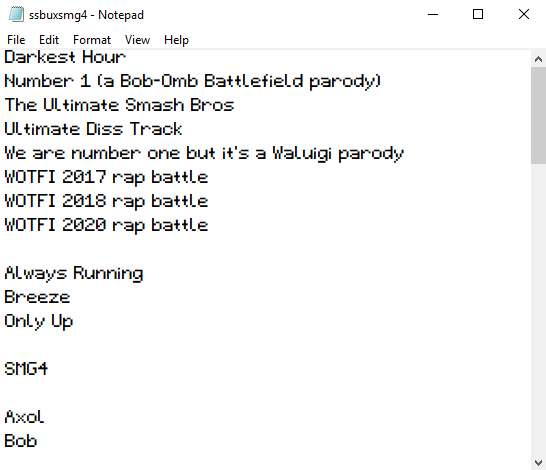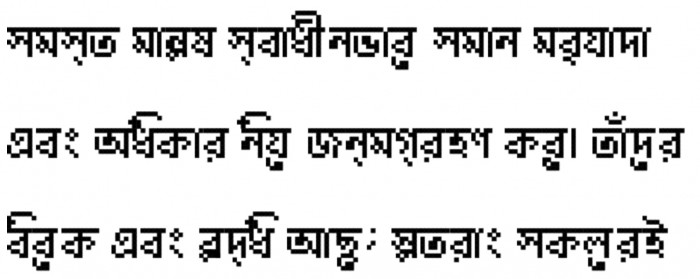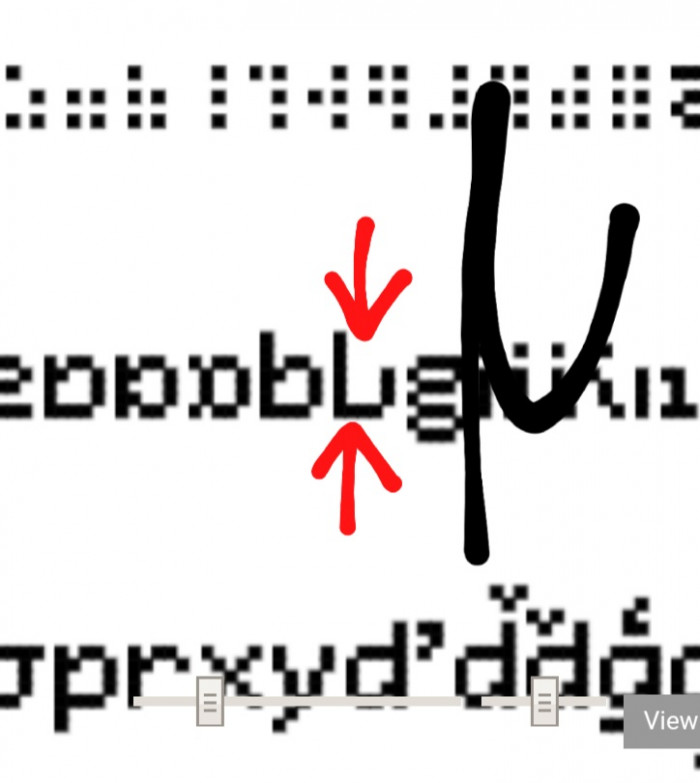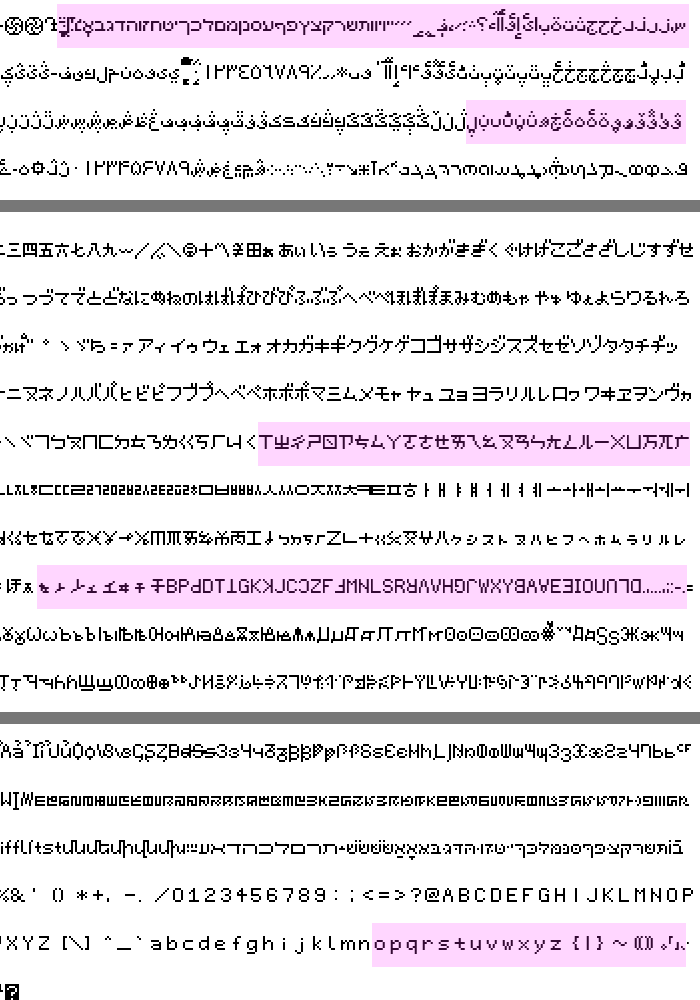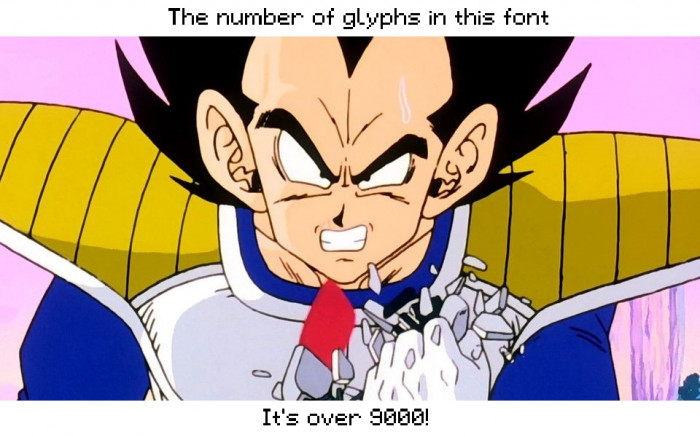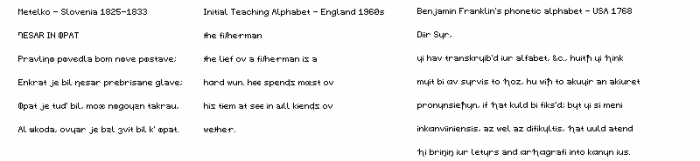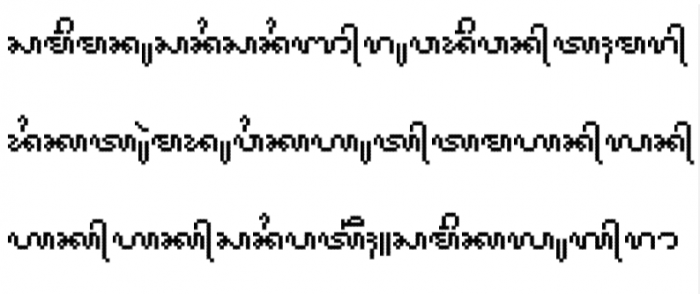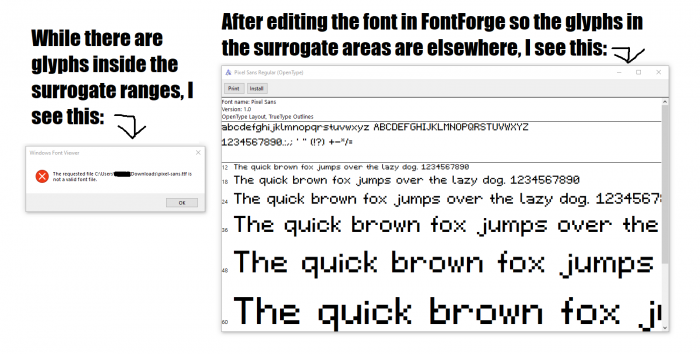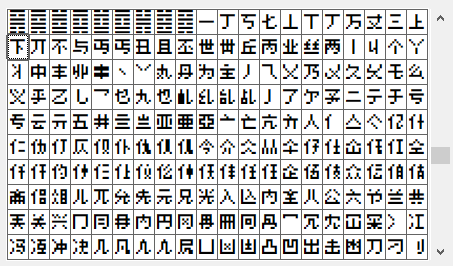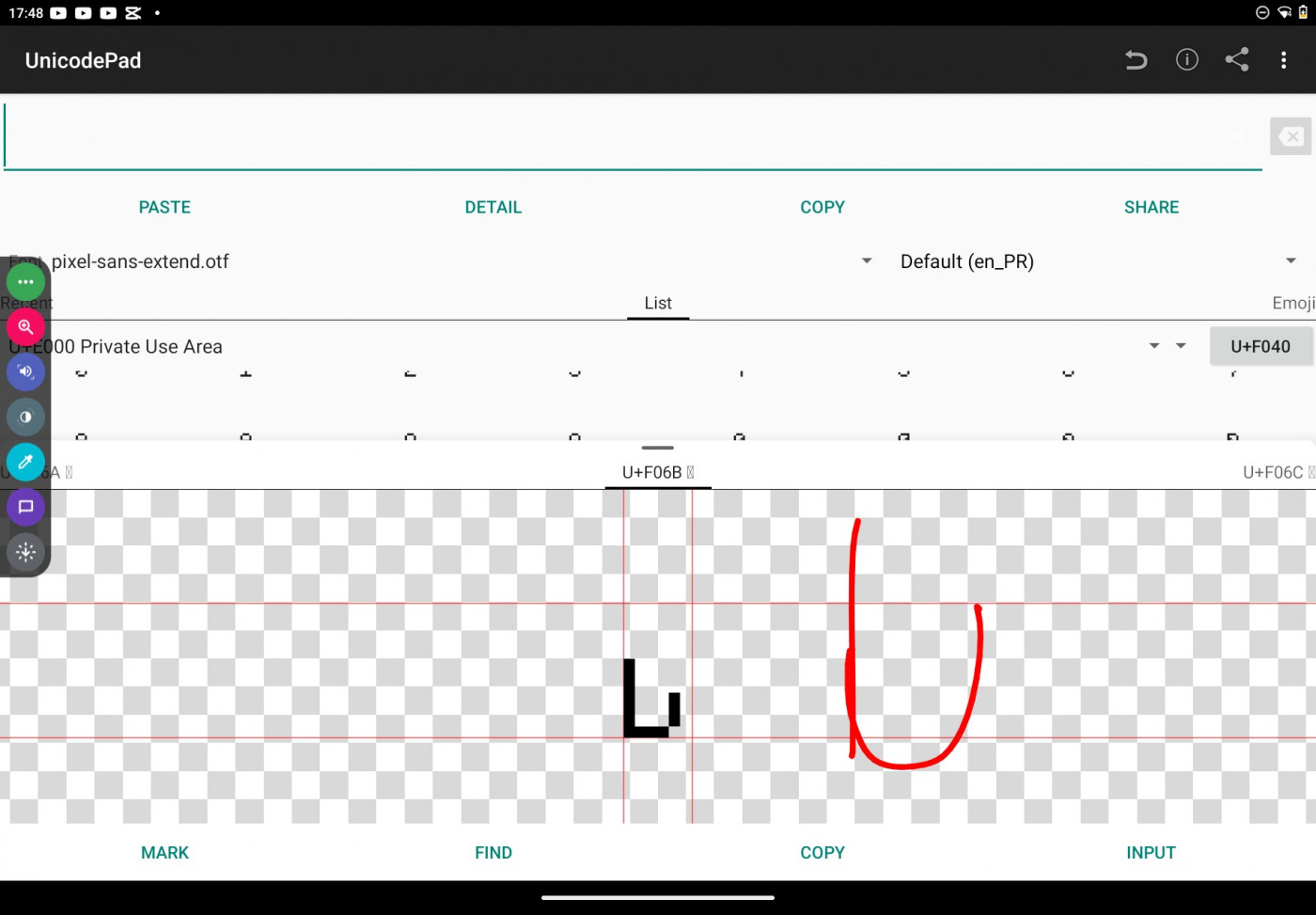
Why does this font have ridiculous line spacing? I know it has some characters that go over the top and bottom lines, but I thought those determine line spacing. Ideally I'd like the lines to be ten pixels high, enough to make the box drawing characters line up.
I think it might be so the preview won't have glyphs that overlap vertically… You could try asking meek about that
Also, you missed a dot on the lowercase Roman numeral 12…
@erictom333 - Is it possible you have a stray brick floating high above one of your glyphs?  If not, you can manually change the font height with a recent addition to FontStruct: Select Expert Mode, then Menu > View > Line Height. You can now adjust the blue horizontal line that indicates the upper boundary of the font's height.
@Goatmeal I've already checked for and removed any stray pixels, and changed the line height to nine pixels, exactly how I want it (per image). I'm okay with glyphs overlapping.
Things get weirder.
Top: Four ɧs. They should have one pixel of line spacing between them, as they do letter spacing.
Below: Box drawing and block element characters, which should line up.
Below that: The character with the lowest descender (a custom presentation form of ģ with the comma below) having zero spacing with a capital A; they should overlap.
Bottom: ÁáÉéÍíÐð. They all have their highest brick above the top line, and have been cut off. This does not happen with characters that go below the bottom line.
I'm not sure if this is intentional or not, but this glyph, where the red arrows are pointing at, to the right of a lowercase b resembles the glyph on the right half, and I'm unsure what languages use that…
@erictom333 - @BWM might be correct above; is the spacing issue you're seeing in the FontStruct preview?  Is that where the samples are from?  Or are you seeing it in other programs once you're installed the generated TTF?  (In Notepad, WordPad, favorite word processor, favoprite image/picture software, etc.)
@BWM It's a handwritted variant of the letter b.
@Goatmeal The sample is from Notepad, not the FontStruct preview. Attached is a sample of text in Notepad in the font.
I'm currently debating where to put my own personal Latin characters. UCAS and Greek Extended are both good candidates, but I plan on encoding the correct characters there.
Pixel Sans now supports Devanagari. Example is from the Rigveda.
Bengali has now been added to Pixel Sans, as part of an ongoing project to include Indic scripts into this font. The following text showcases:
- This font's ridiculous line spacing (please ignore).
- The i and e vowel signs: unlike Devanagari's i vowel sign which must be placed before the consonant to display properly, Bengali's i reaches over the letter to display somewhat correctly. Similar with the e vowel sign.
Comment by erictom333 16th march 2021
An insanely comprehensive character set. I salute your tireless dedication, enjoying especially the attention to detail from the mathematical operators to the miscellaneous character unicode blocks! And of course the range of languages present is impressive.
Can I recommend you add tags to detail the ranges you cover and make it easier for folx to find your great work here?
Also, pay special attention to the character width settings. It's easy at certain zoom levels to move it into apparent alignment with the grid when in fact is off by a hair. This affects pixel rendering – and I can tell you have at least a couple characters deep in the set with ever so slightly aberrant widths.
Overall awesome work, erictom333!
Comment by William Leverette (will.i.ૐ) 16th march 2021
There is no strict criteria for Top Picks. It should generally be something that does not look similar to a Top Pick or something that has not been attempted before.
Very nice work, erictom333. Maybe when this is complete, it could be ported to OpenType and have alt glyphs in the .salt / .ss01 to .ss20 OpenType features (Placing them within .ss01 to .ss20 is recommended)…
Comment by Bryndan W. Meyerholt (BWM) 16th march 2021
@will.i.ૐ Thanks for the praise! For the latter, I might fix that later.
@BWM I won't usethe stylistic alt feature because I'll use this on programs like Notepad that don't support the feature.
@BWM Raster images are easier to deal with and manipulate (many of the character images are spliced from multiple glyphs).
@Miguel_Gil i had a stroke while reading that
BRO. HOW MANY GLYPHS?!
where is the caron